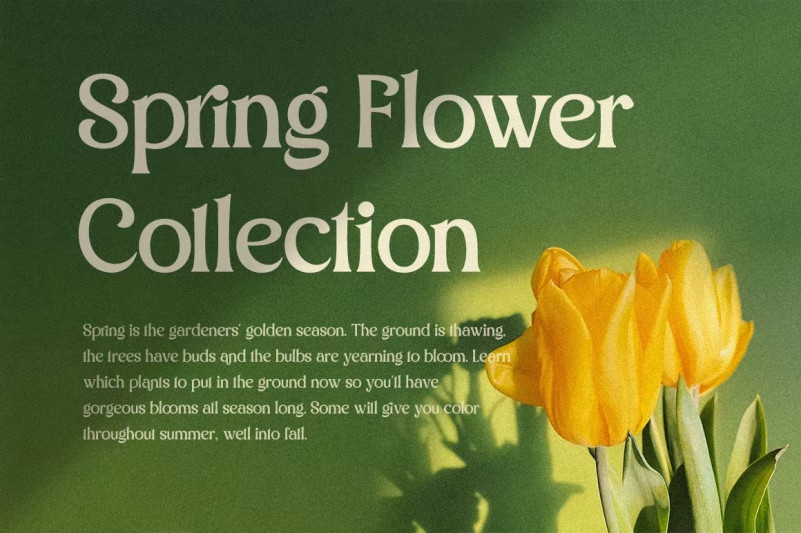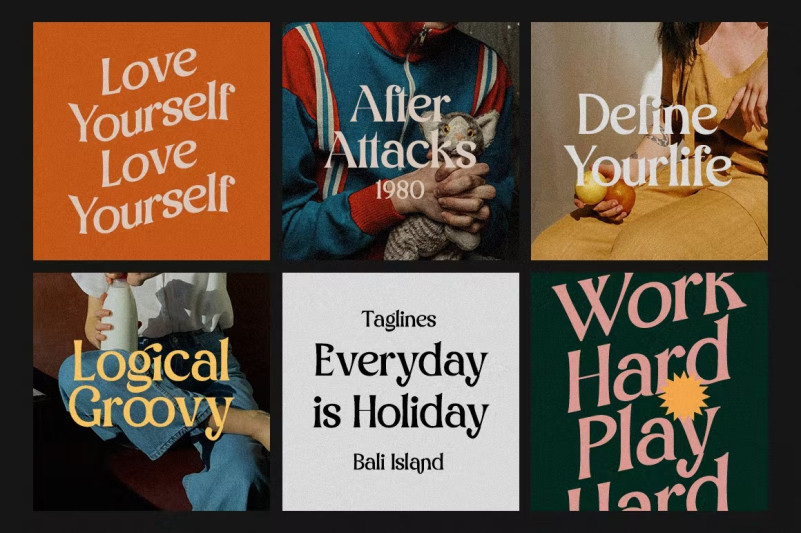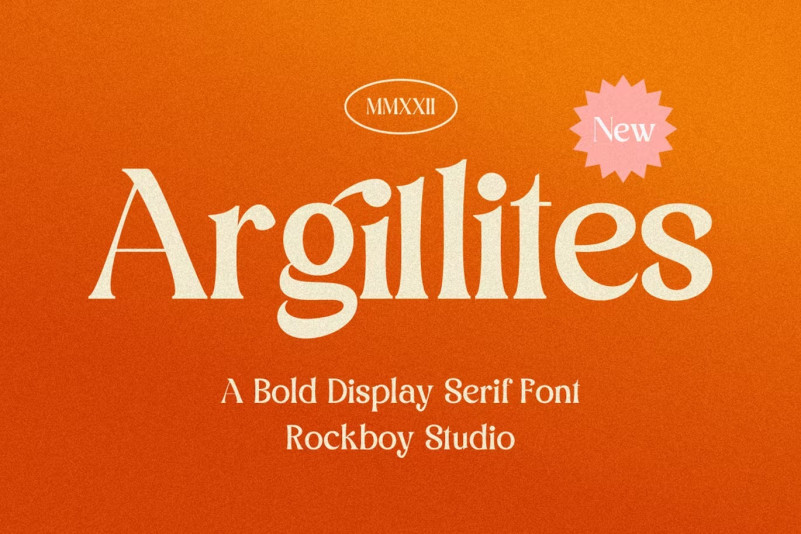
Argillites – display serif font
Argillites is a bold serif font, carefully handcrafted to become a real favorite. Its laid-back charm makes it wonderfully down-to-earth, readable and, ultimately, incredibly versatile.